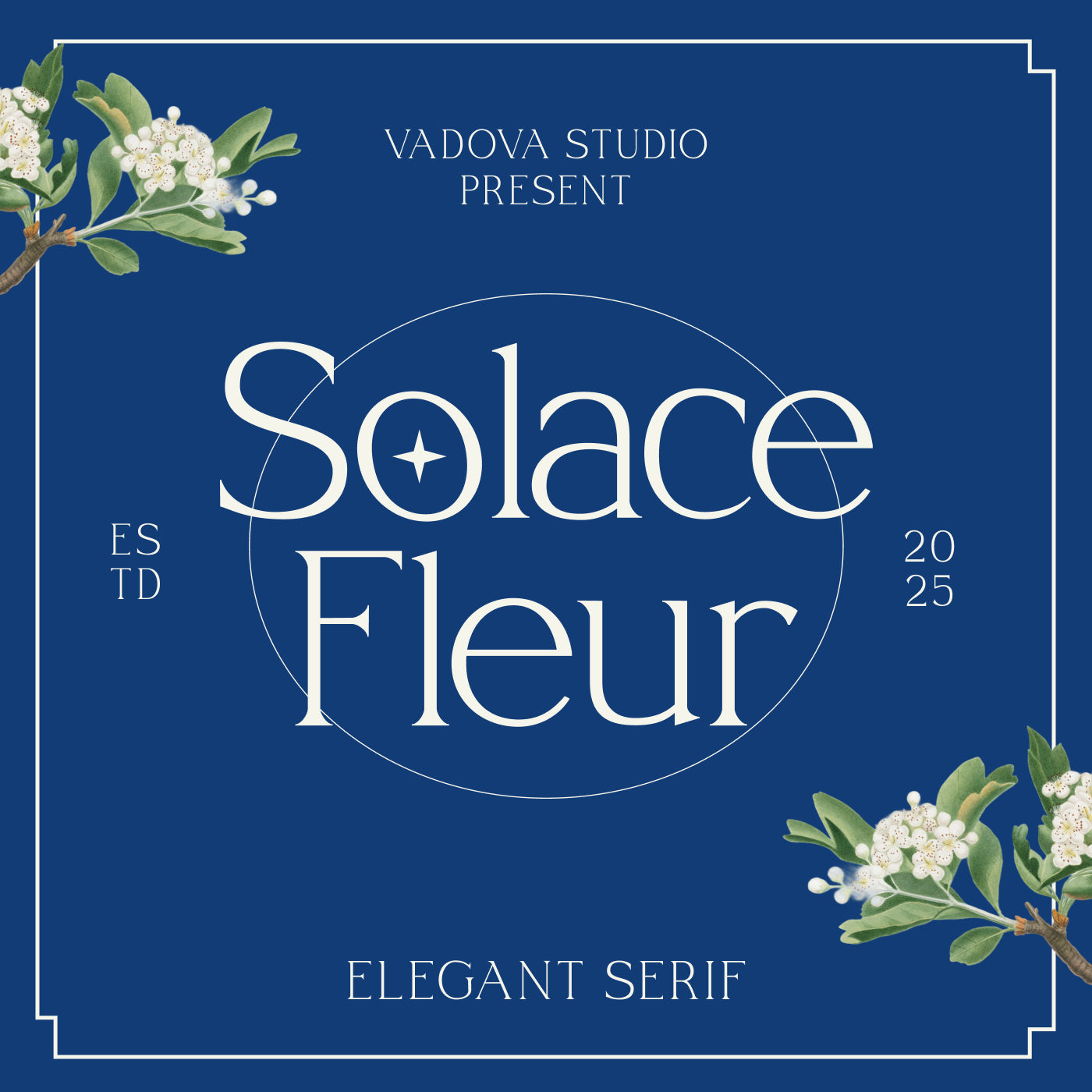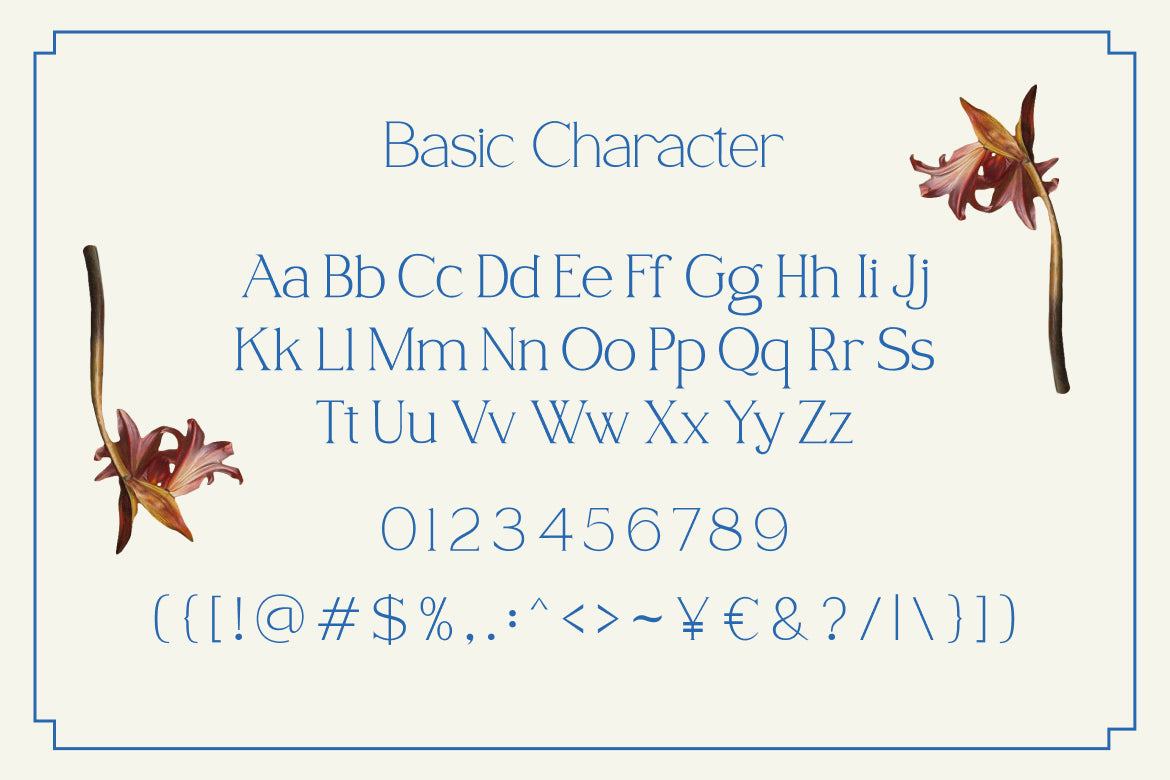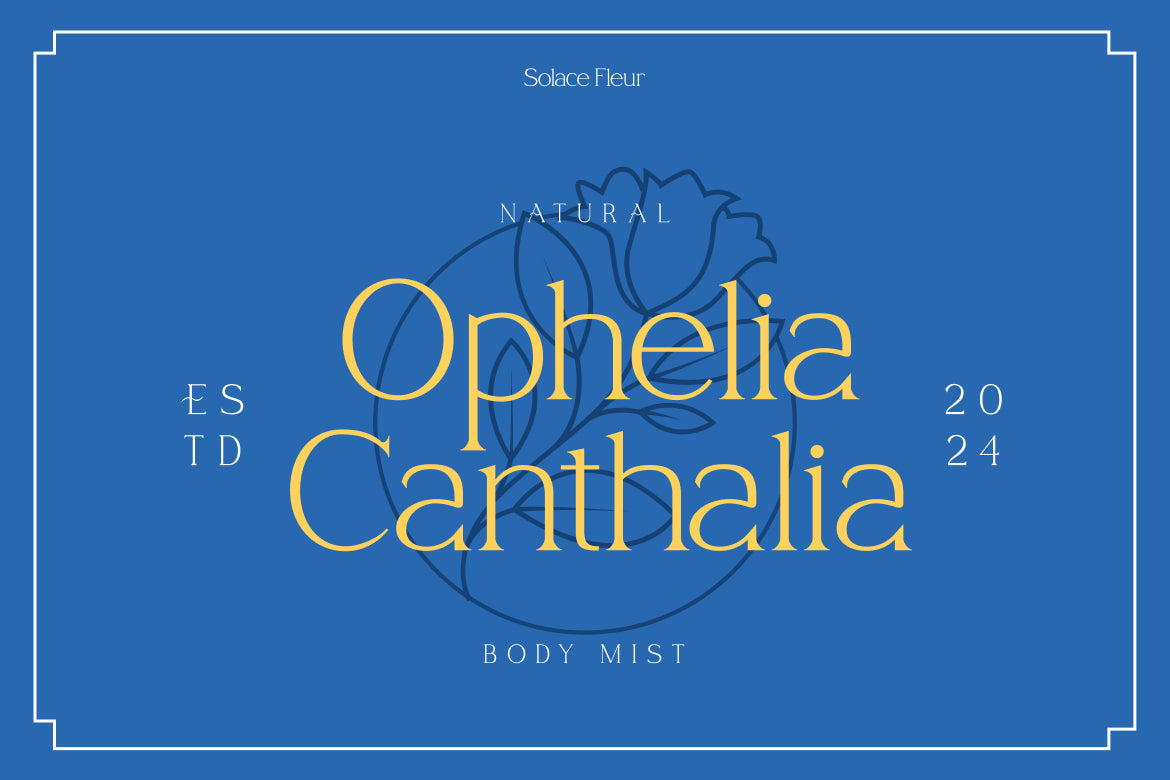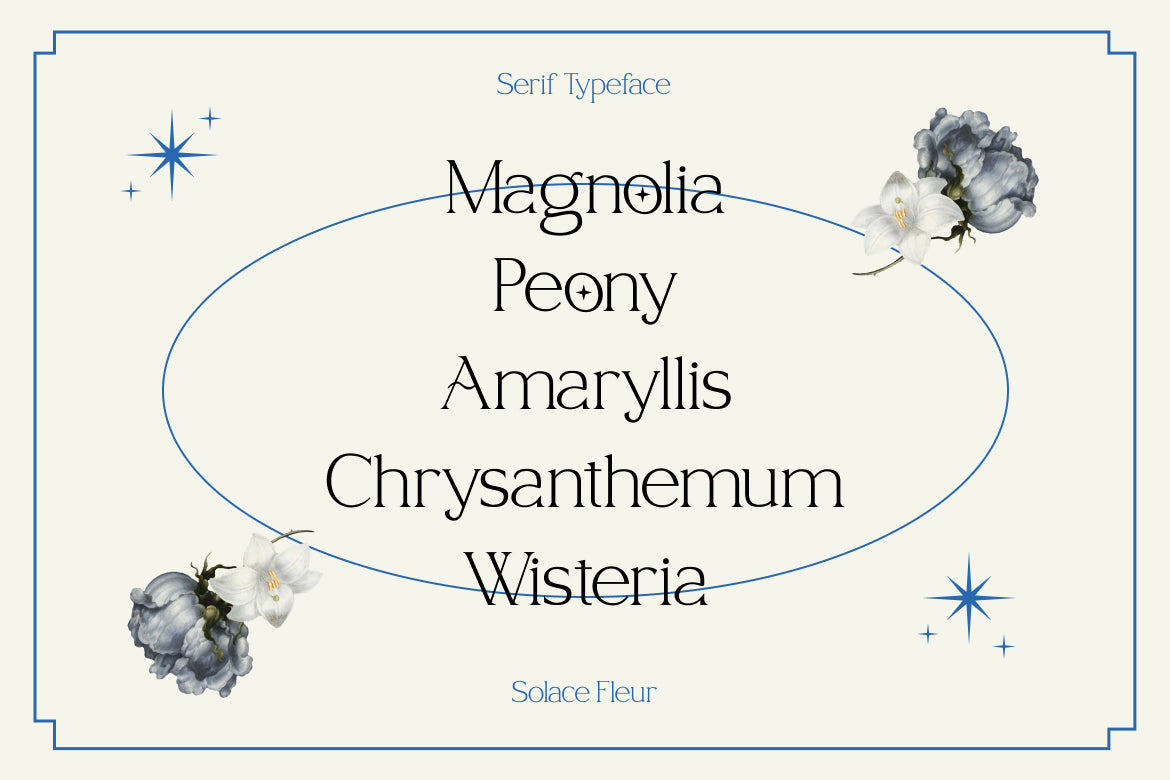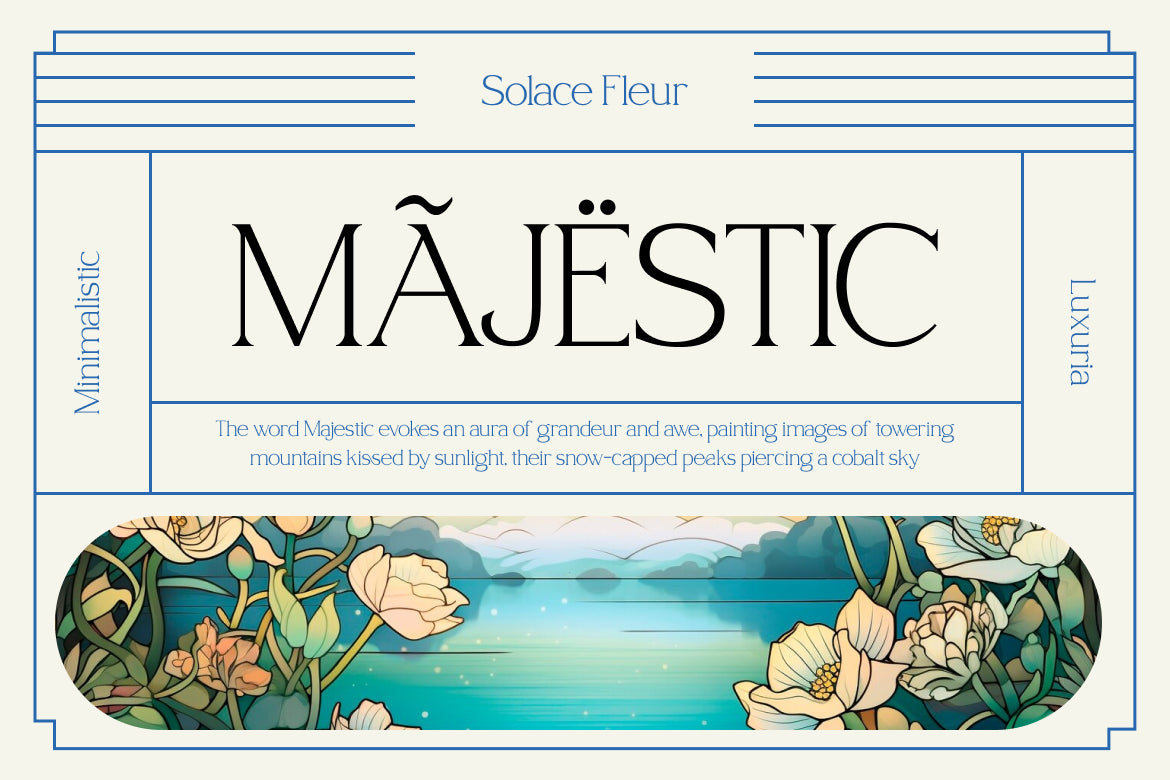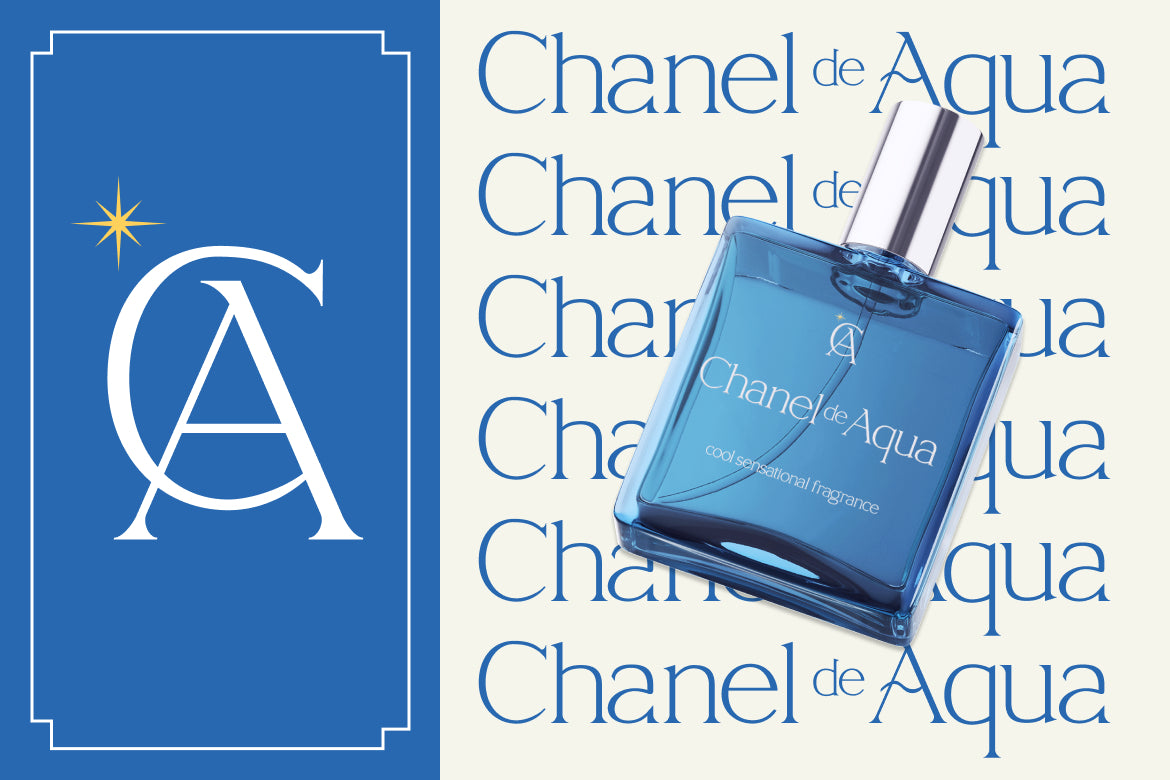
Solace Fleur Elegant Serif Font
Solace Fleur is an elegant serif font with a modern and refined aesthetic, subtly infused with a floral-inspired touch. Its letterform structure features graceful serifs and flowing lines, creating a sophisticated and gentle vibe. This font is particularly well-suited for branding in the beauty and lifestyle markets, editorial designs for fashion magazines seeking a delicate touch, and wedding stationery aiming for timeless elegance. Its refined nature also makes it ideal for high-end packaging and sophisticated social media visuals.
The Solace Fleur Elegant Serif Font is a modern serif typeface featuring graceful serifs and flowing lines, designed for a refined aesthetic. It is available in TTF, OTF, and WOFF formats, includes uppercase and lowercase characters, as well as numerals and punctuation.